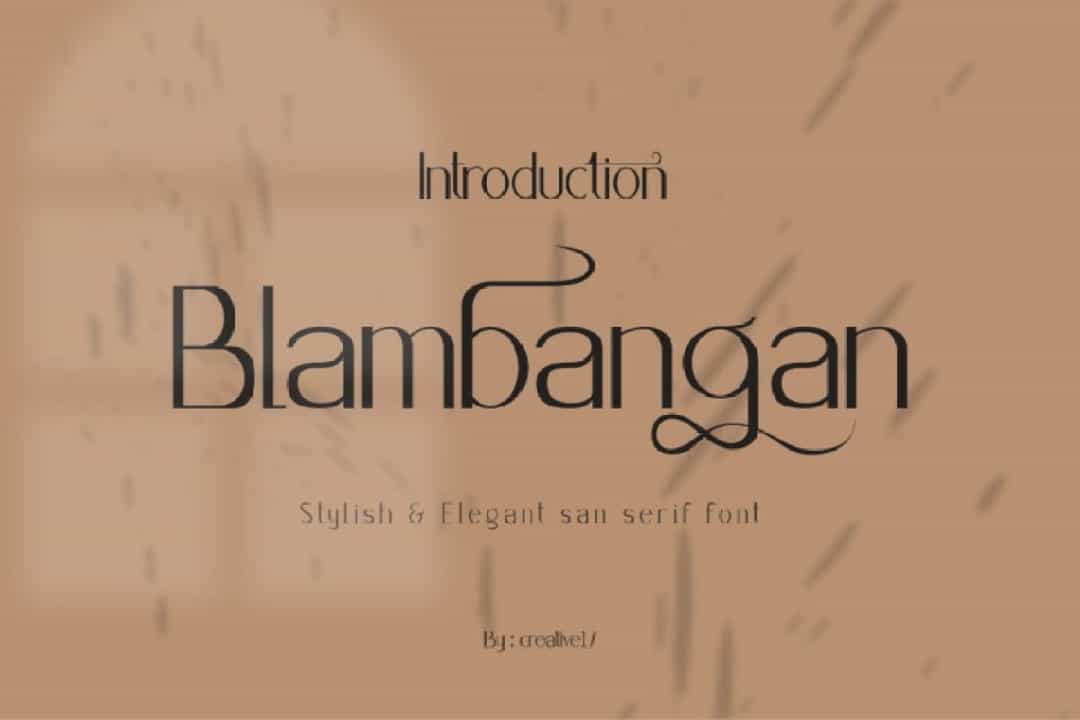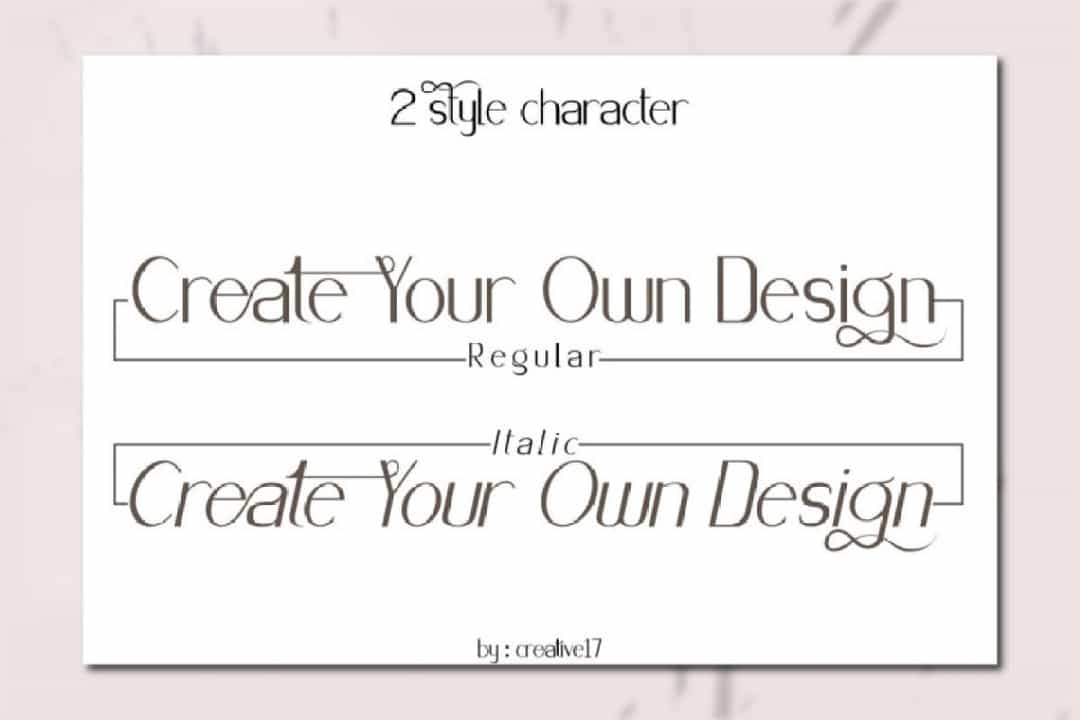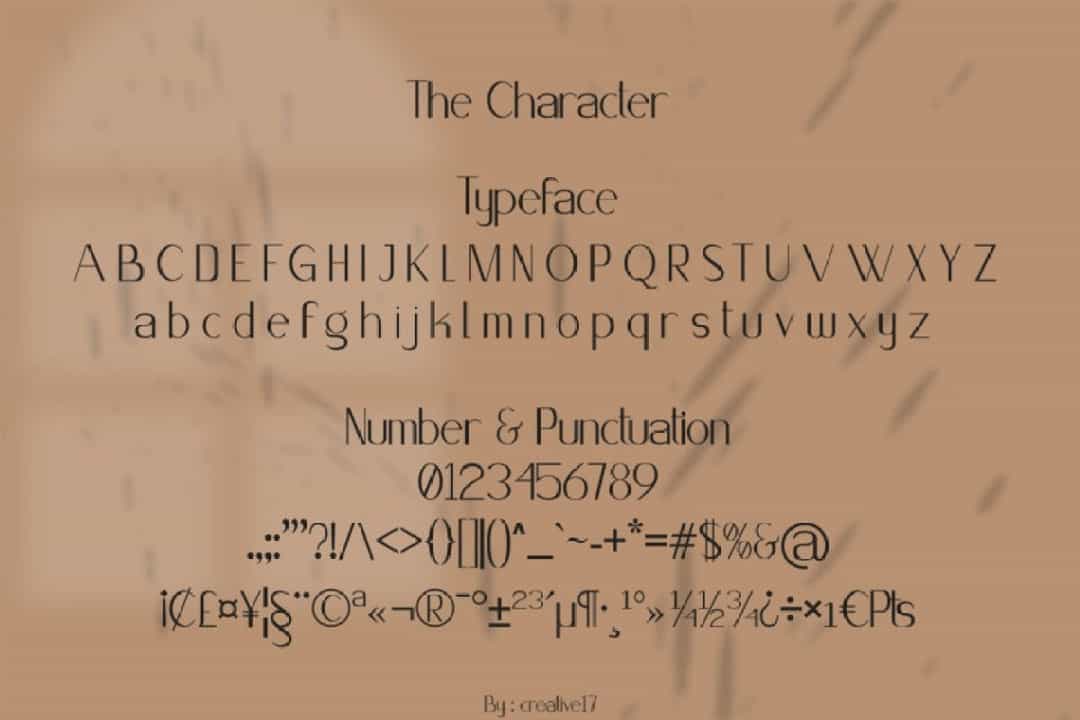
Blambangan is a very stylish and professional font which can be used for any small and large projects like wedding invitation cards, branding logos and other graphic designing projects. This font has upper case numerals, lower case letters and punctuation, and it is also suited for use in different languages and has other ligatures and special characters to help with the designing process.